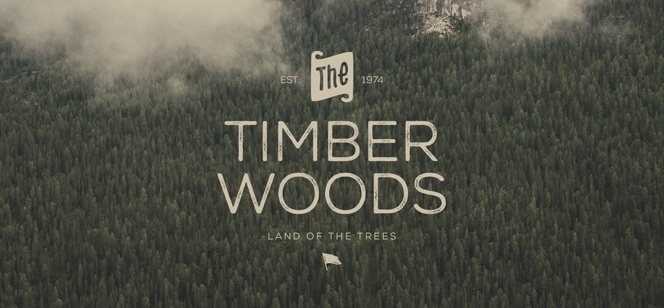
Nexa Rust font
Nexa Rust font family – a new generation based on Fontfabric’s Nexa and Nexa Slab families has been just released for sale. The amazing number of 83 fonts is included in this evolutionary super family and you must have no doubts that quantity and quality go hand in hand, raised to their top level. The existing Nexa and Nexa Slab were really well-received and easily became best-sellers after they were published and of course turned into a good foundation for further development – the result is a whole collection or even a font system called Nexa Rust. There are lots of new features here but what is most important are the newly designed Nexa Rust Script, two new handmade fonts – condensed and extended and five brand new extra fonts with animal icons, goodies, catchwords and simple icons. All these sharing same style with authentic rough edges, different levels of worn-out texture inside letters, shadow effect and of course multiple weights inside each of the styles. This is a lot of work and efforts pointed in one direction – creating a specific very useful type environment where you can play with contrast, styles and effects freely without any need of looking for other additional fonts.
Nexa Rust family gives you almost everything you need with so much diversity and high quality that you could easily create a vintage whiskey label, poster or t-shirt with letterpress effect, authentic brand name, food packaging or even use it for retro style editorial design. The Sans and Slab styles are designed with uppercase letters only while the Script versions have full set of lower and uppercase letters. The two handmade fonts bring more life and personalized look inside the family and the five extra fonts add even more character, originality and uniqueness to the whole collection. Fully Open Type compatible Nexa Rust font family has a lot of extra characters like ligatures, alternates, multilingual support, etc. We are optimistic that the Bulgaria based type foundry will add good Cyrillic alphabet to this awesome collection very soon.
Our conclusion – Nexa Rust font family is simply great. It is integrity of professionalism, good sense marketing and of course nice typography. If you love vintage look, retro images, letterpress effect large overprinted areas, visible trapping and spot colours, then Nexa Rust is a must-have-font for you! Don’t get only single weights and styles – get the whole family and you’ll have a lot of fun and endless number of combinations. Enjoy!